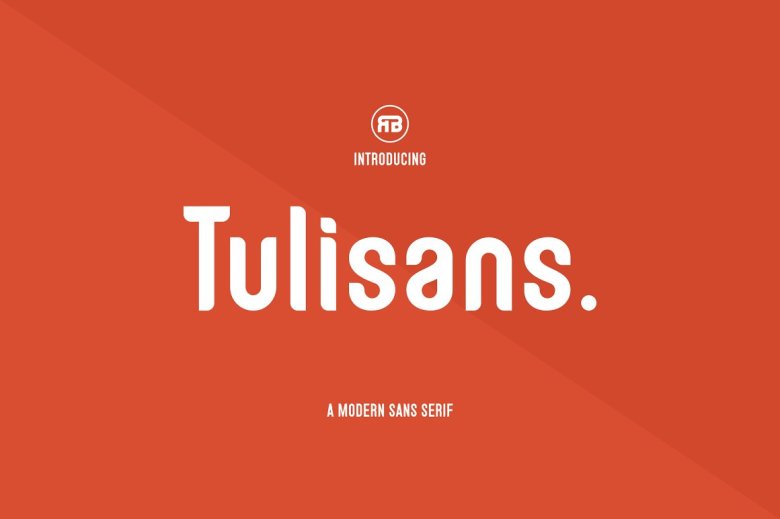
Tulisans Font
Tulisans is a simple sans serif and it has semi-rounded details and a neat appearance. This is a capital alphabet, numbers, and general sign complete set typeface, ideal for logo layouts, titles, subheads, branding, and other small amounts of language. This typeface has multilingual functionality.
Tulisans Sans Serif Font